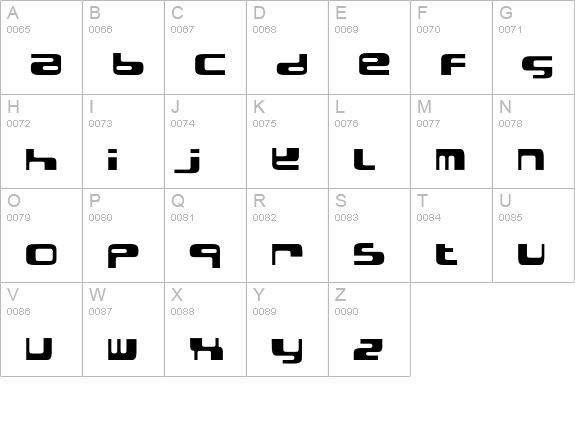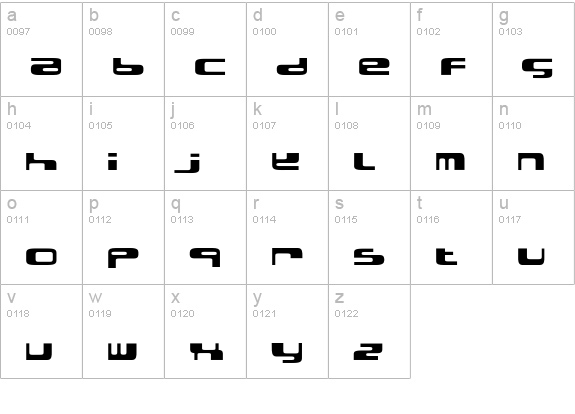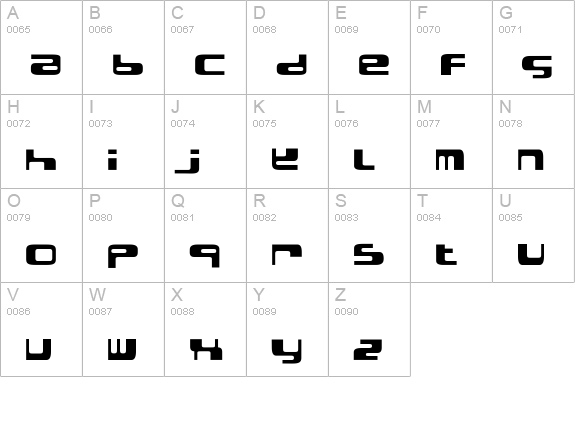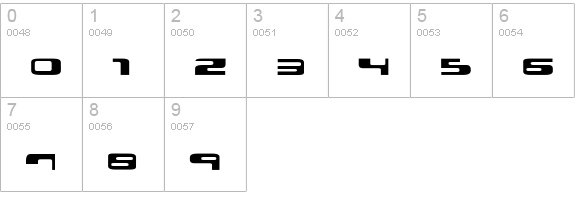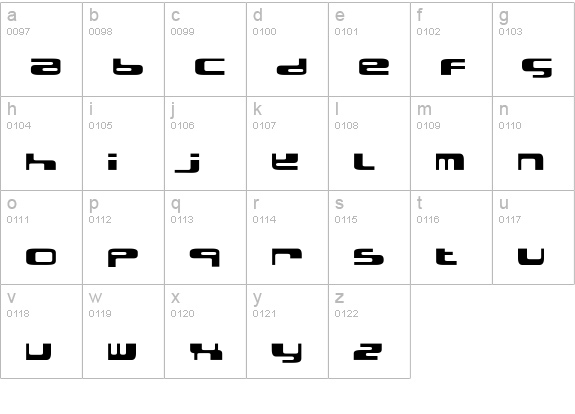
BDElectrobazar-Regular Font Details
BDElectrobazar-Regular is the standard, neutral variant in the BDElectrobazar typeface family \xE2\x80\x94 well suited to general body text, paragraphs, and standard typographic work.
BDElectrobazar-Regular is a modern and stylish font that will bring a sleek and professional look to any design project. This versatile typeface features clean lines and a contemporary feel, making it perfect for a wide range of applications, from branding to advertising to web design. Its bold and dynamic appearance will surely grab the attention of your audience. What's even better is that BDElectrobazar-Regular is available for free download at FontsMarket.com. This means you can easily access this high-quality font without any cost, making it a great choice for designers on a budget or anyone looking to add a touch of sophistication to their projects. Don't miss out on the opportunity to elevate your designs with this stunning font - download BDElectrobazar-Regular today!